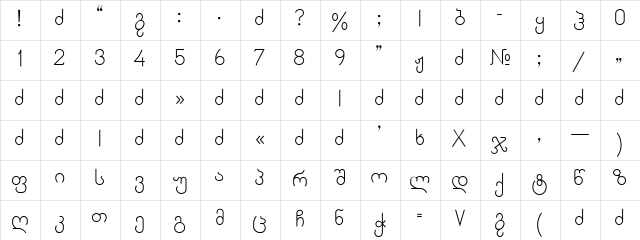
Kolcheti Regular
Design Context for Kolcheti Typeface
Kolcheti takes a measured approach to typography — its balanced proportions and neutral character make it a reliable workhorse for both digital and print work.